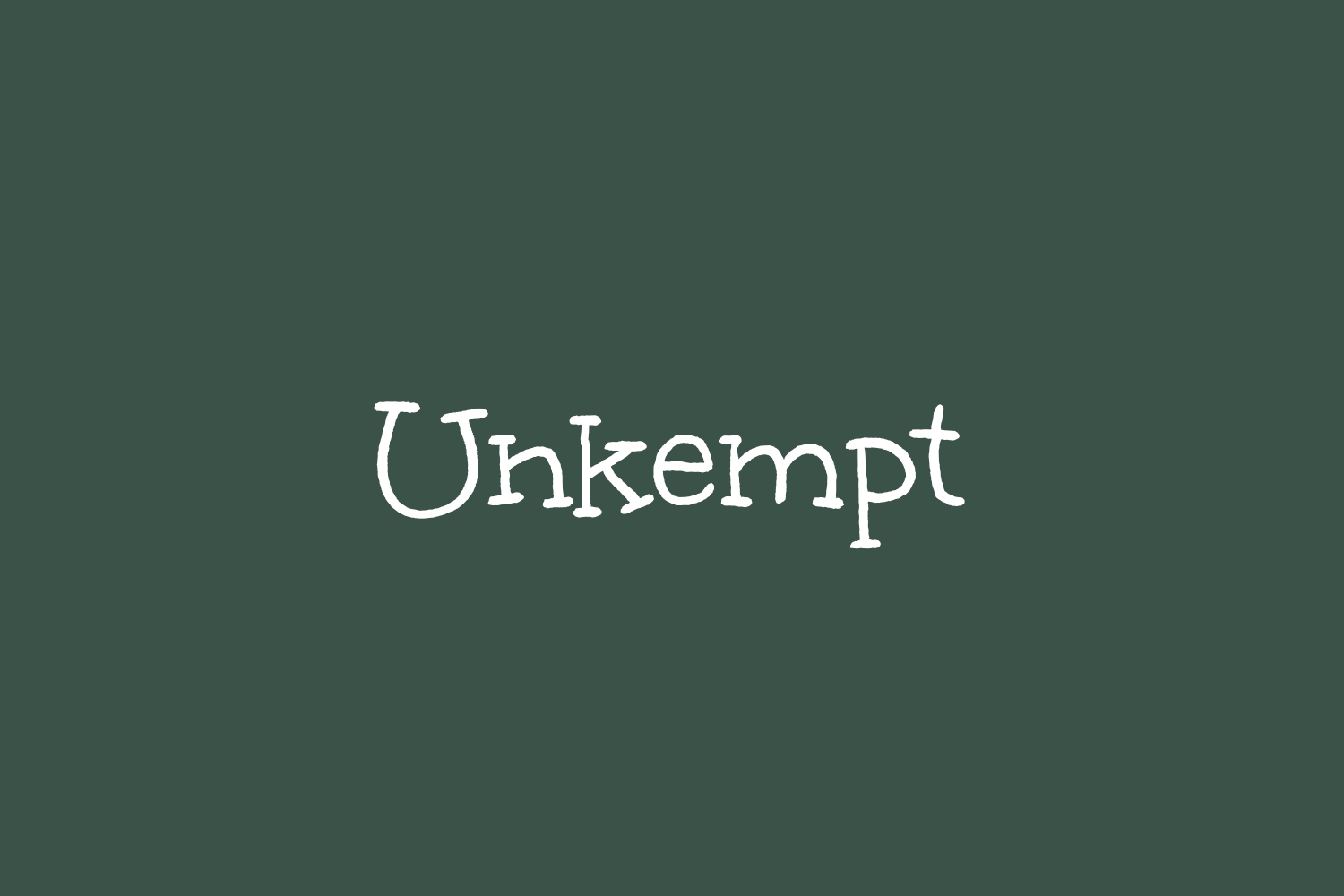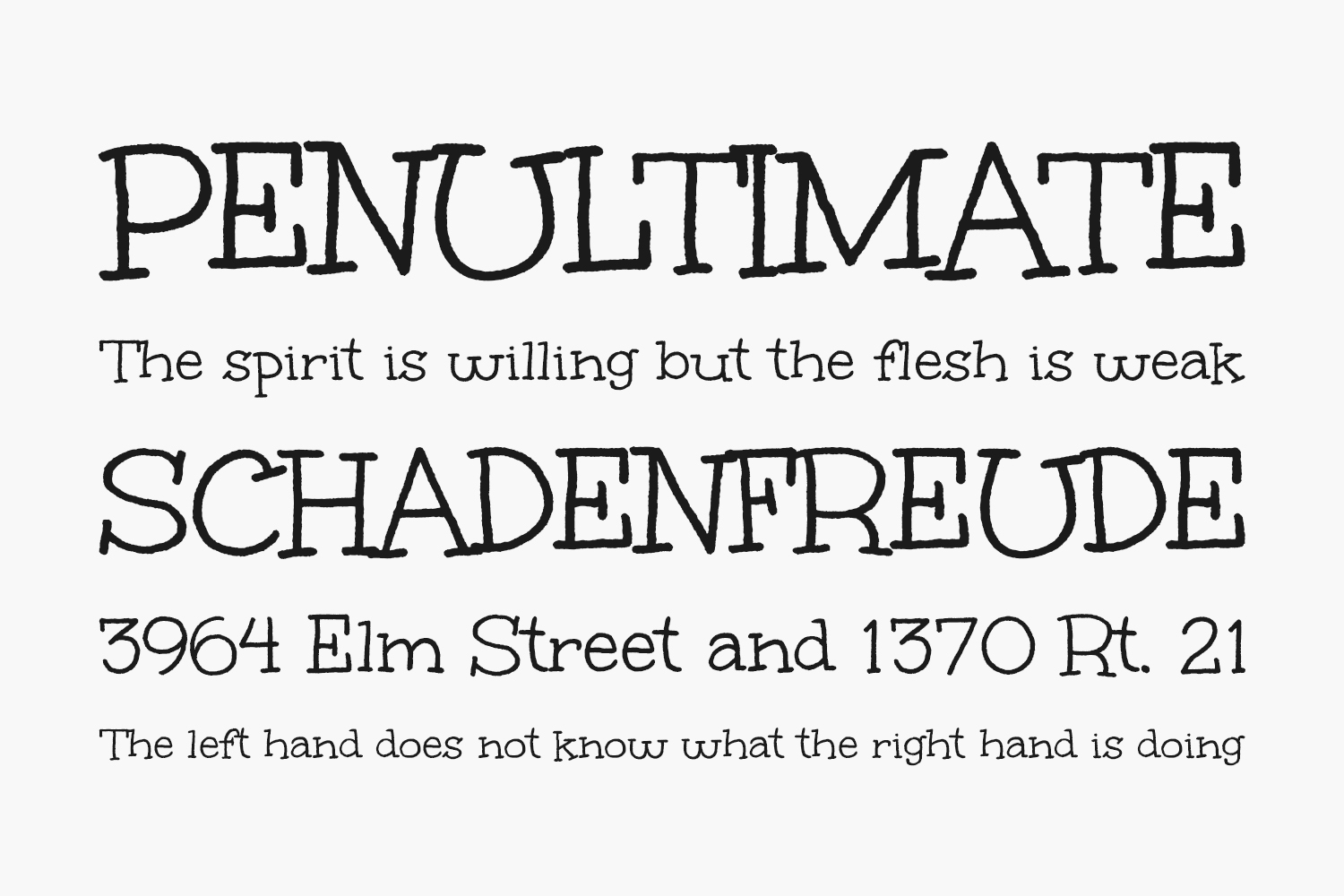
Unkempt Free Font Family is lacking in order and neatness, and began with hand-lettering. This off-kilter gem is definitely different than a traditional regimented typeface.
Designed by Sideshow